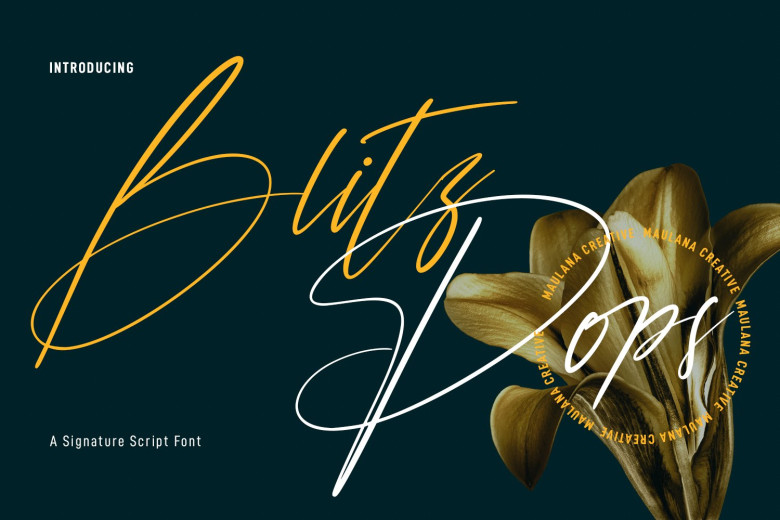
Blitz Pops Font
Blitz Pops is an eye-catching trademark script typeface, with a high contrast stroke, playful character, alternates and ligatures for enhanced artistic work. Blitz Pops font is multilingual – supporting over 100 languages! Perfect for logos, social media posts and movie or book titles or book covers and brief text with either serifs or sans fonts, create stunning designs using Blitz pops typeface!
Blitz Pops Signature Script Font